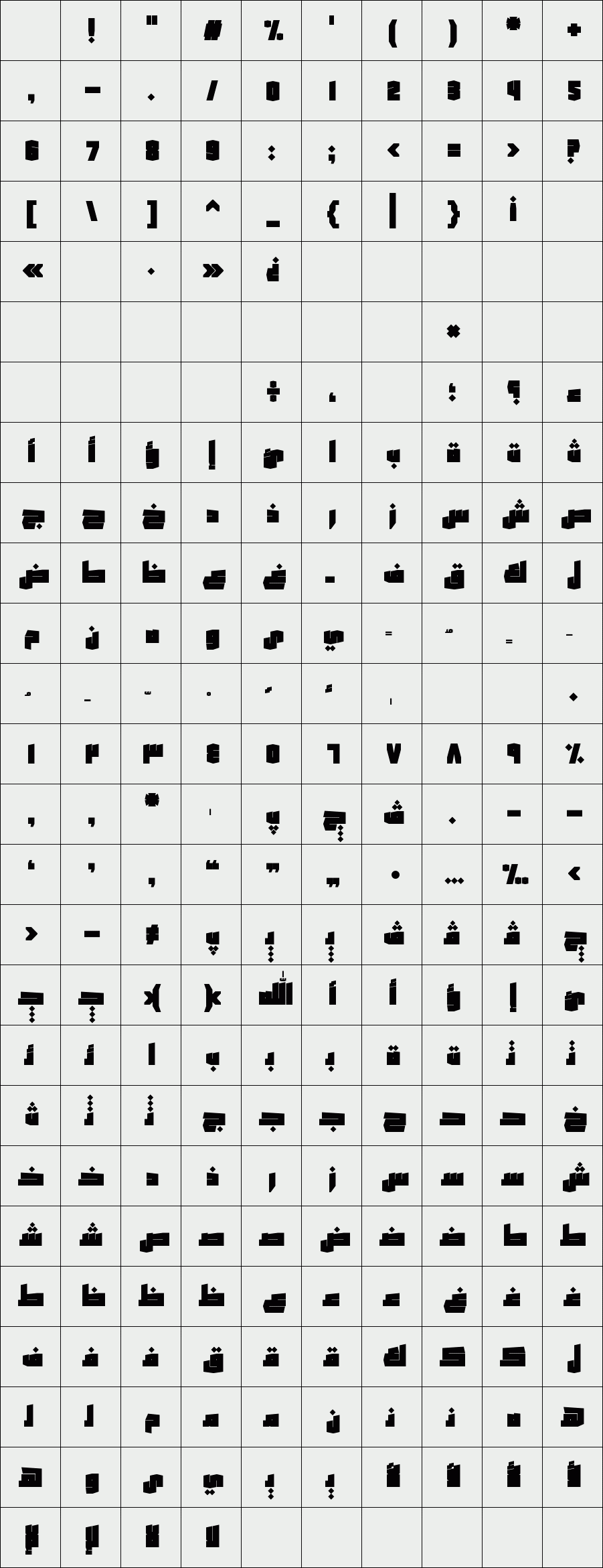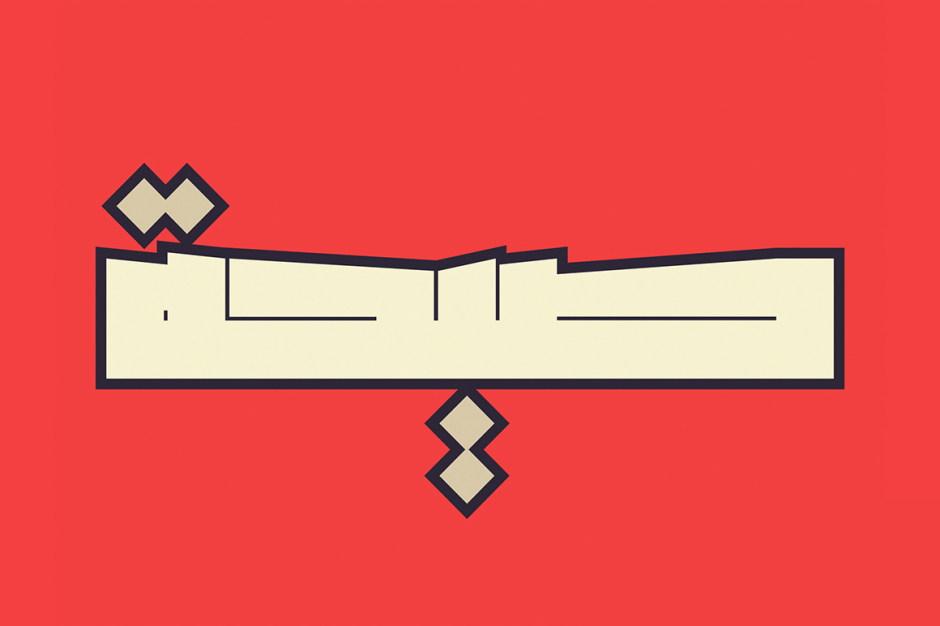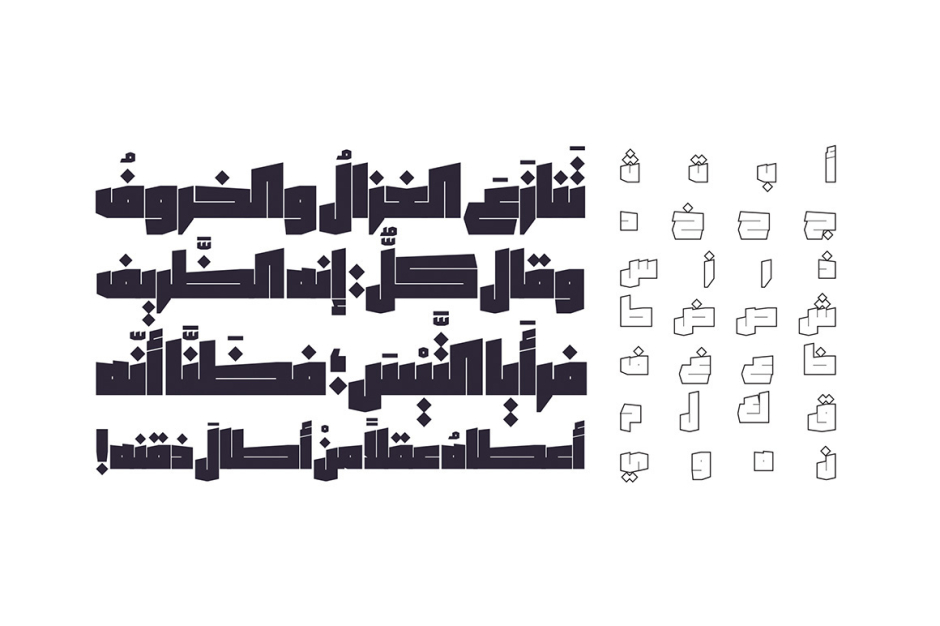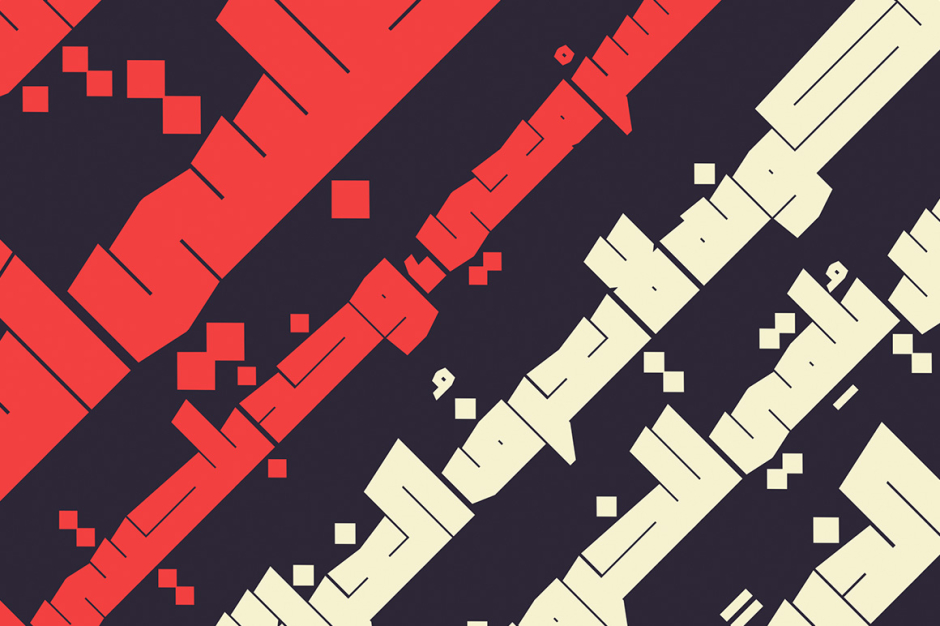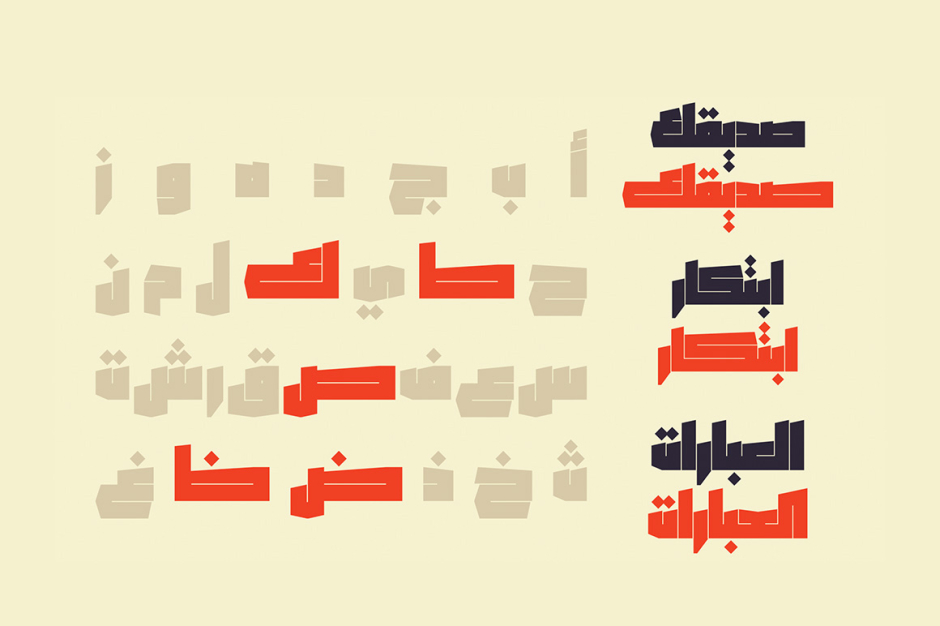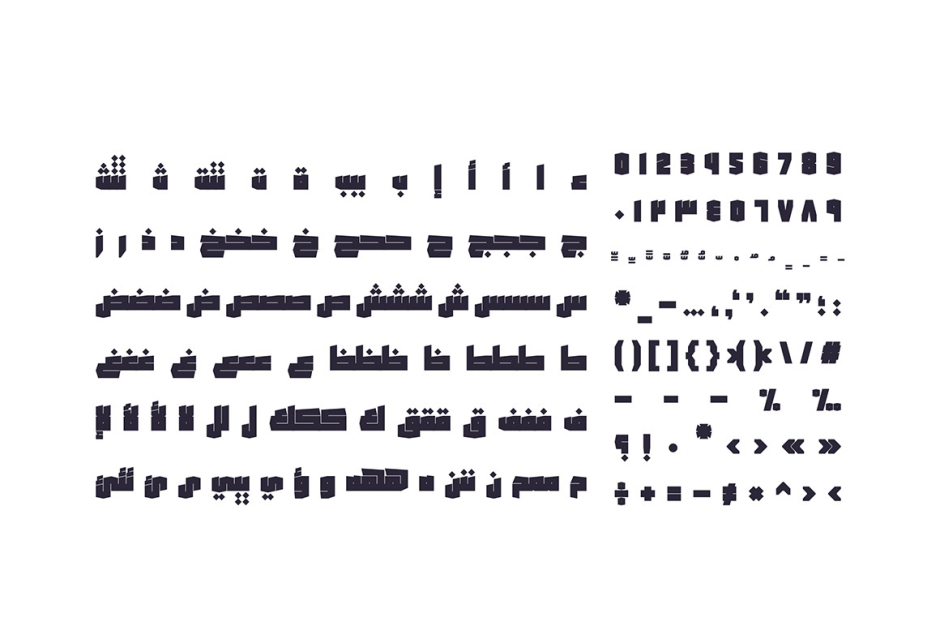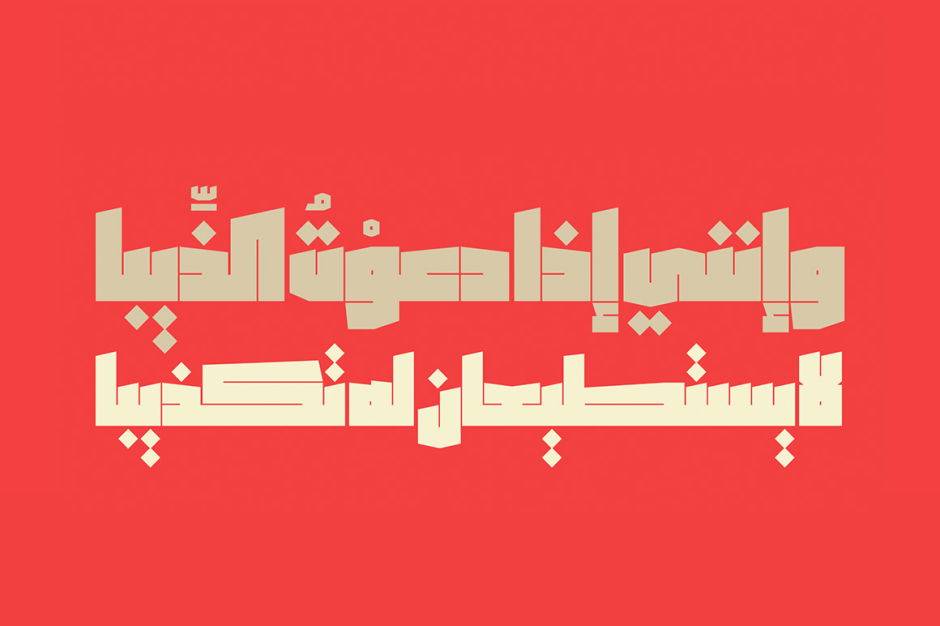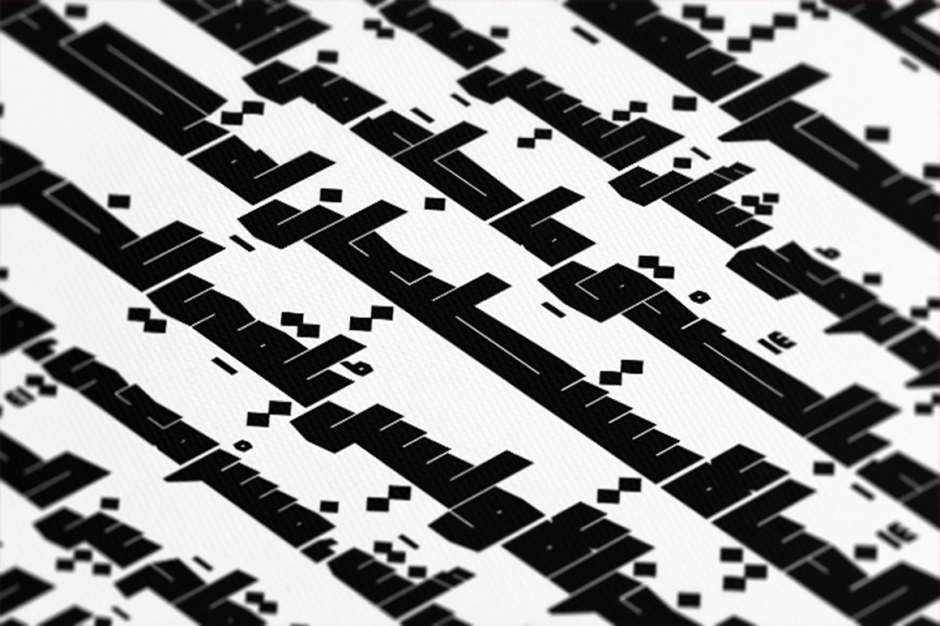
Saiihah
The word Saiihah is the Arabic for shout. Saiihah is an Arabic display font with an extra heavy style. It suits branding, posters and advertising.